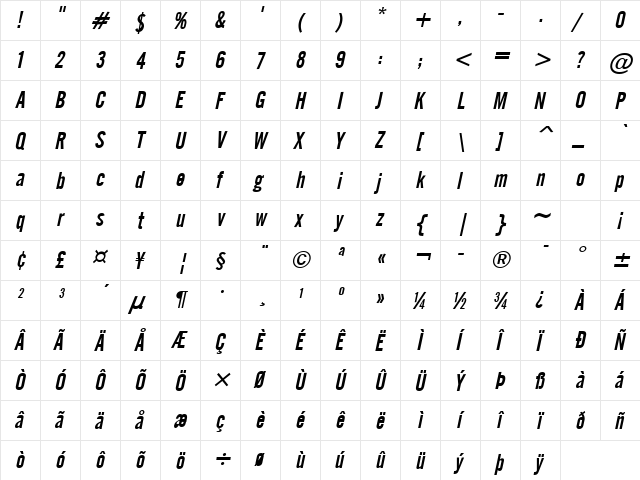
English Gothic Italic
Design Context for English Gothic Typeface
English Gothic has the quiet confidence of well-executed sans-serif typography: versatile, unobtrusive, and dependable at any size. Its italic angle brings a sense of urgency and motion to the letterforms.
Font Pairing: Works well alongside a characterful serif or display font that can carry the expressive load while English Gothic handles the functional copy.
Pro Tip: Use English Gothic for UI labels, navigation, and short-form body copy where clean legibility is the priority.